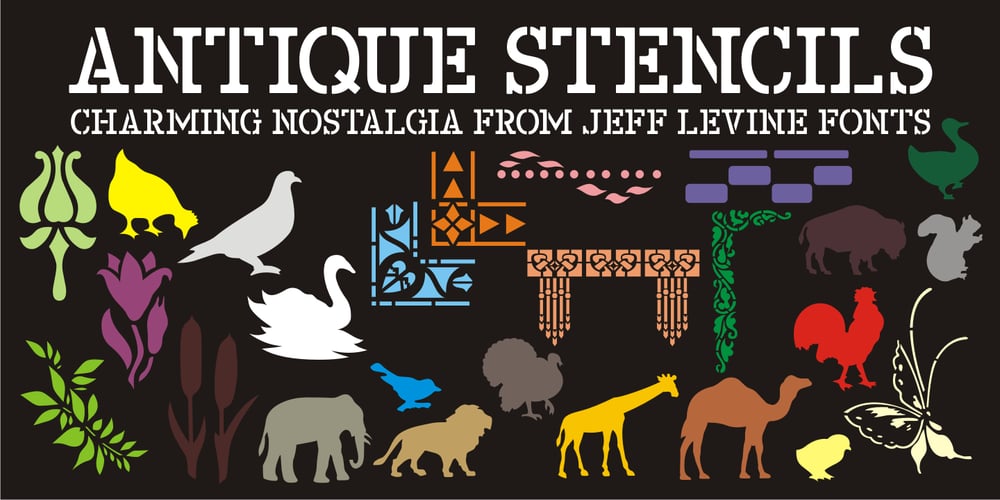
Antique Stencils JNL Font Family was designed by Jeff Levine and published by Jeff Levine. Antique Stencils JNL contains 1 styles and family package options. A butterfly, plants, animals, borders, embellishments, a center piece and corner pieces make up this assortment of charming stencil designs re-drawn from vintage sources for Antique Stencils JNL.